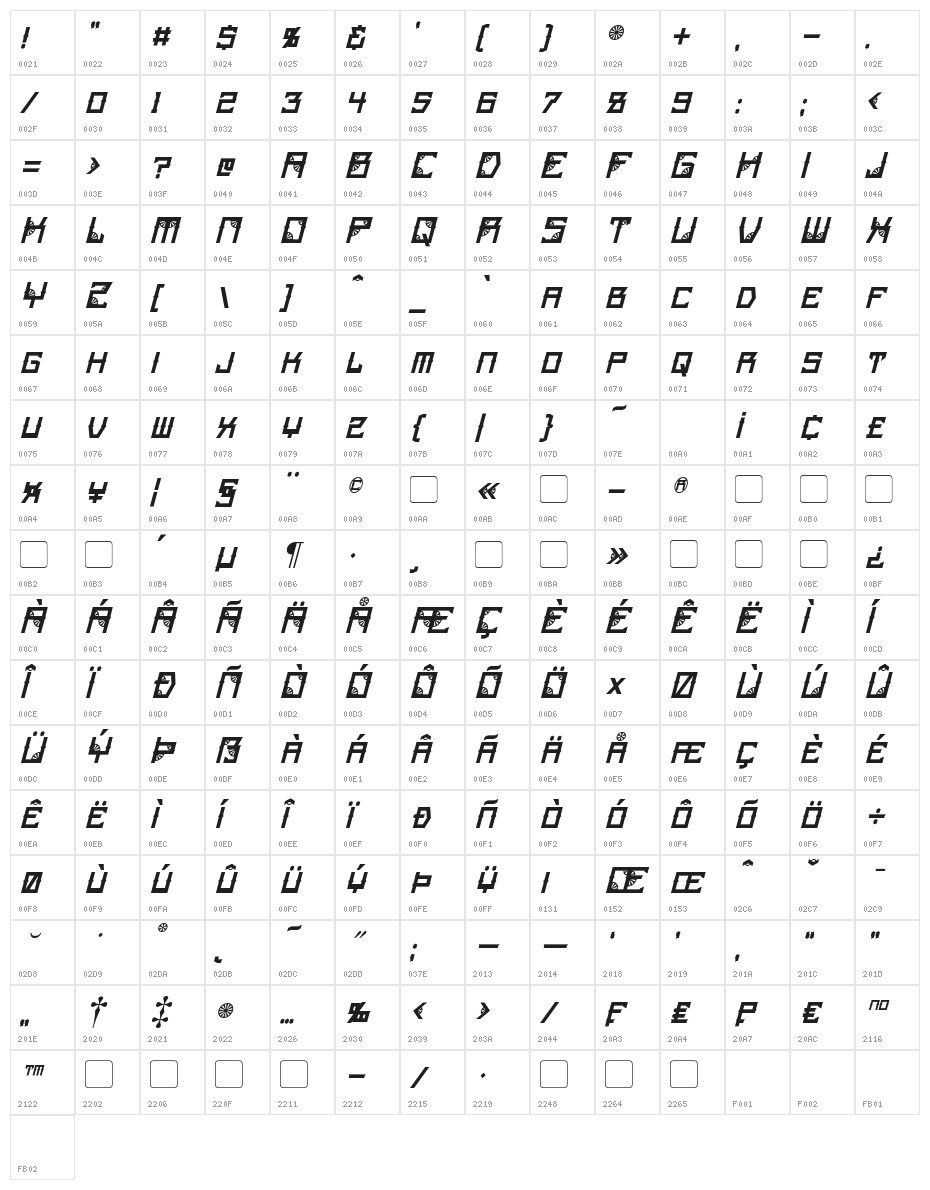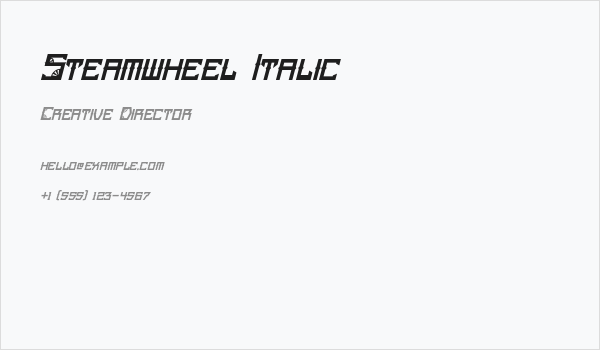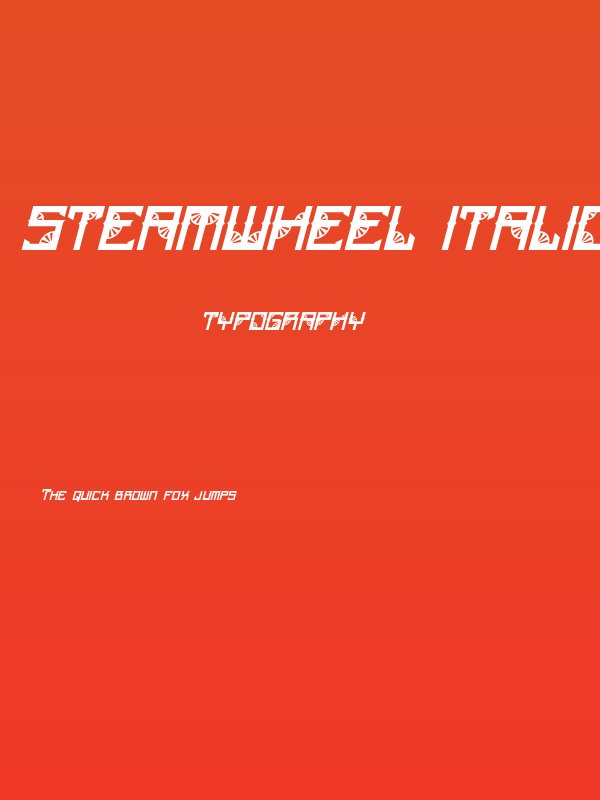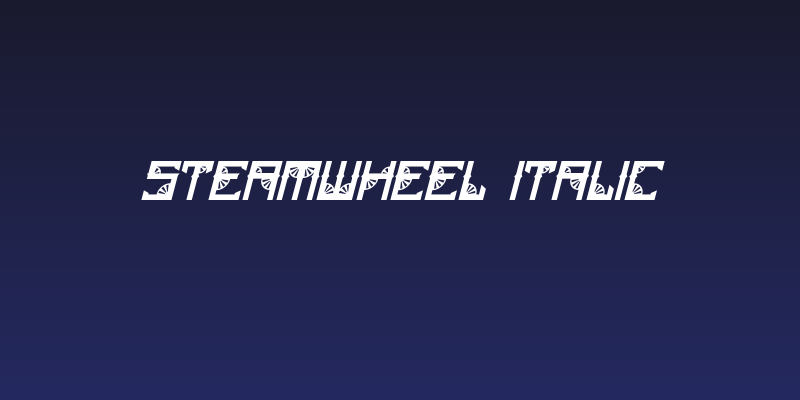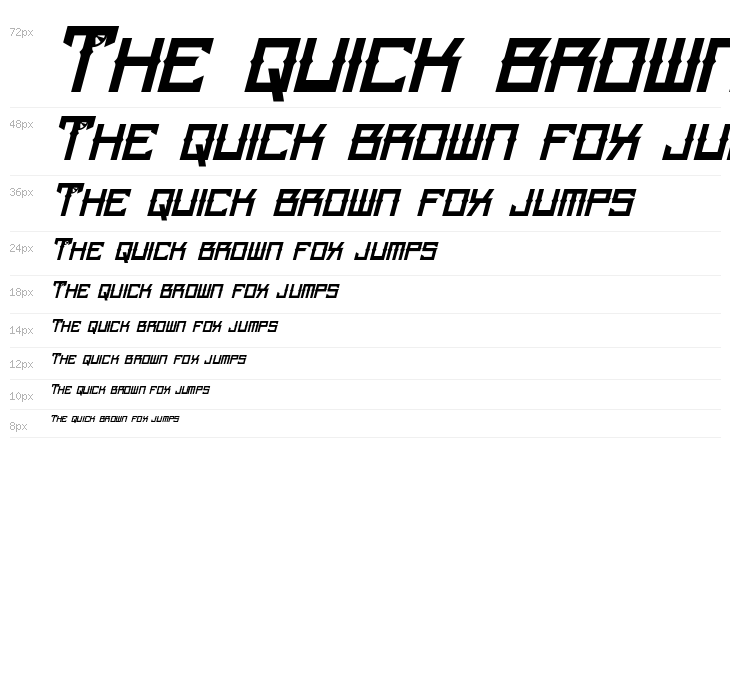
Steamwheel Italic Font
Steamwheel Italic Description
This font features a bold, angular design with a distinct mechanical aesthetic. Each character is crafted with sharp edges and geometric shapes, giving it a futuristic and industrial feel. The letters are slightly italicized, enhancing the dynamic appearance. The unique design elements within the characters, such as the cog-like patterns, add to its steampunk-inspired style. The numbers and special characters maintain the same thematic consistency, making it suitable for projects that require a bold and unconventional look.
| Overall Style | Futuristic, Industrial |
| Proposed Projects | Ideal for use in science fiction book covers, video game titles, industrial-themed posters, and branding for tech or engineering companies. |